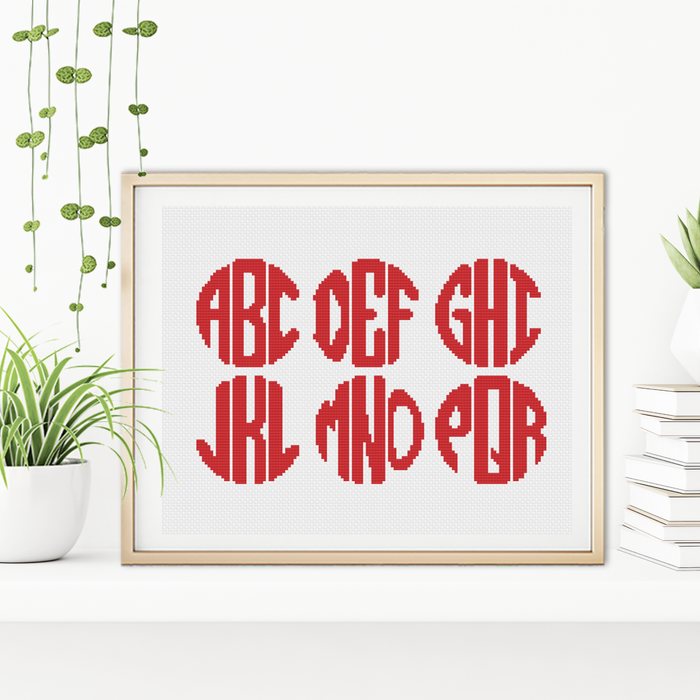
Monogram Font
Cross Stitch Font
This Chart contains all 3 versions (left, middle, right) of all letters of the alphabet so that you can create personalised Monograms
Tallest letter is 39 stitches high
On 14 count this makes the middle initial just under 3 inches high so this would be lovely in a 4″ hoop to make a gorgeous personalised bauble or even a coaster